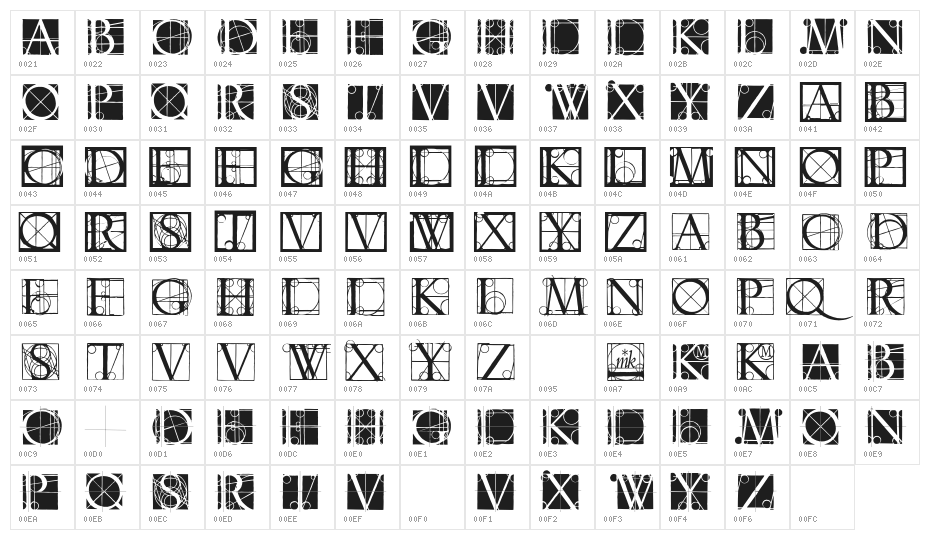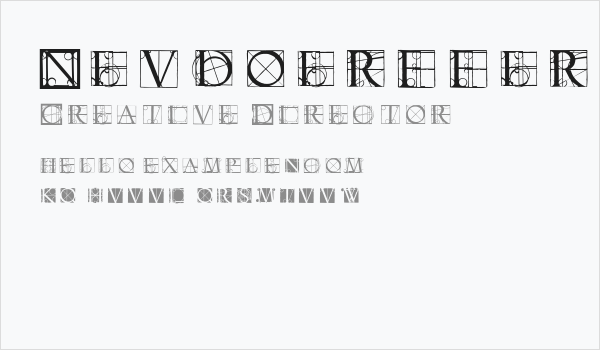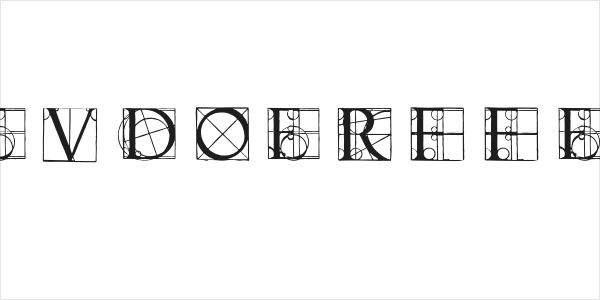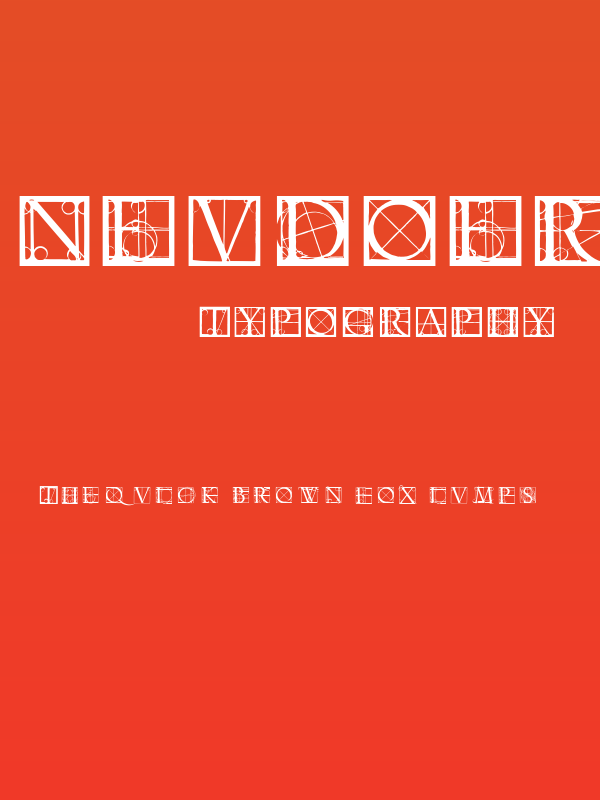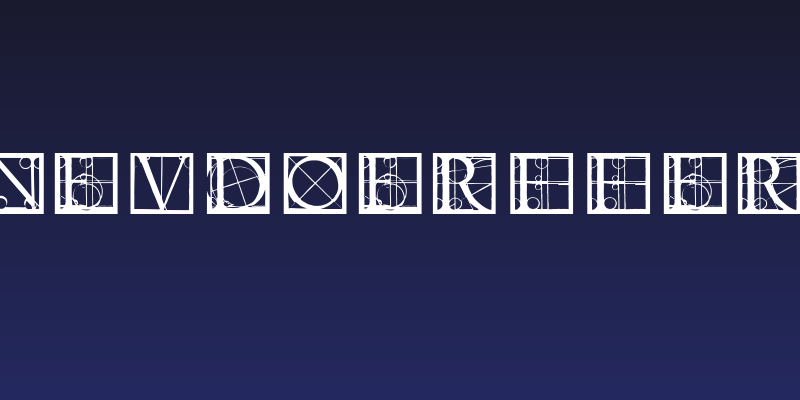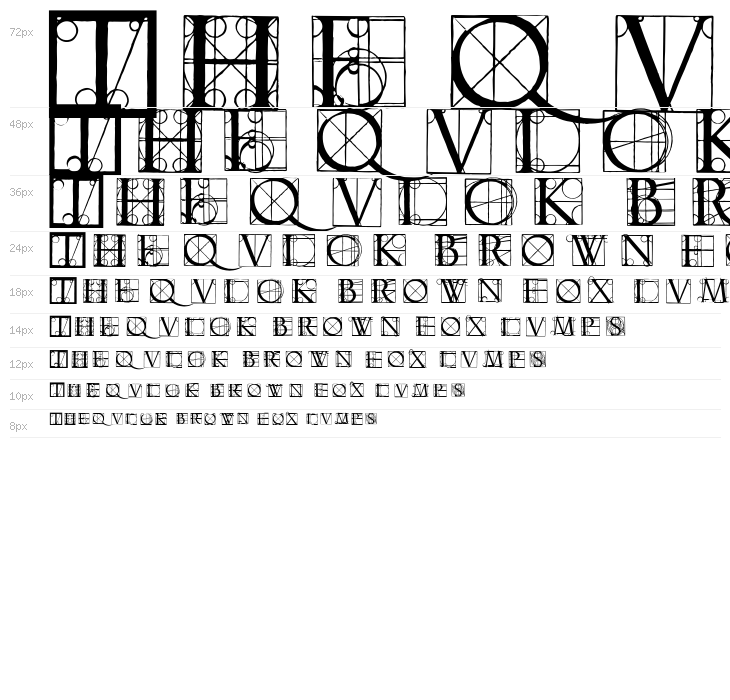
Neudoerffer Font
Neudoerffer Description
This font is a highly decorative and intricate design, featuring letters enclosed within square frames. Each character is adorned with geometric patterns, including circles, lines, and intersecting shapes, creating a complex and artistic appearance. The style is reminiscent of architectural blueprints or technical drawings, offering a unique blend of precision and creativity. The font's elaborate design makes it stand out, ideal for projects that require a bold and artistic statement.